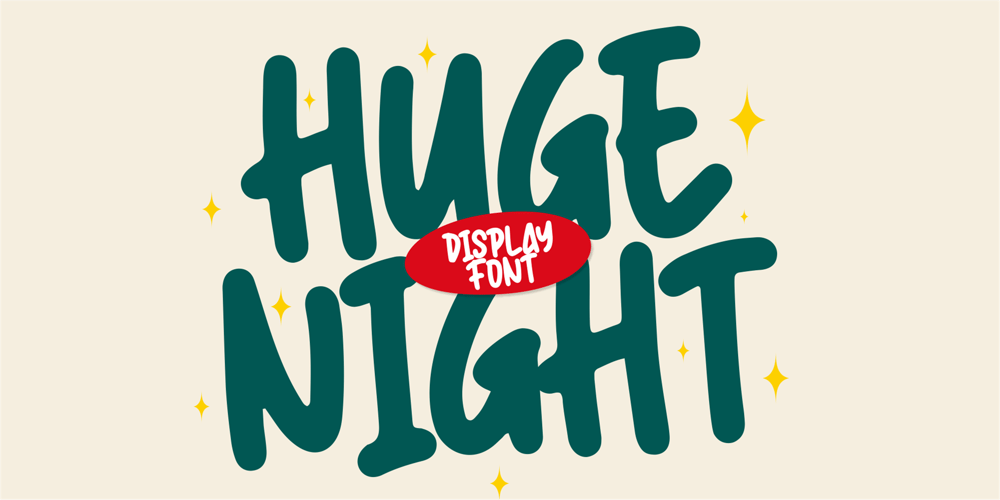
Huge Night Font Family was designed by Muhammad Mujibulloh and published by MJB Letters. Huge Night contains 1 styles and family package options. Introducing Huge Night, a handwritten brush font with a casual and bold display style. Perfect for creating striking designs, it is ideal for branding, packaging, quotes, logos, social media graphics, and more. Huge Night also supports multiple languages, making it versatile and accessible for a global audience. Add a dynamic and expressive touch to your projects with this stylish font!